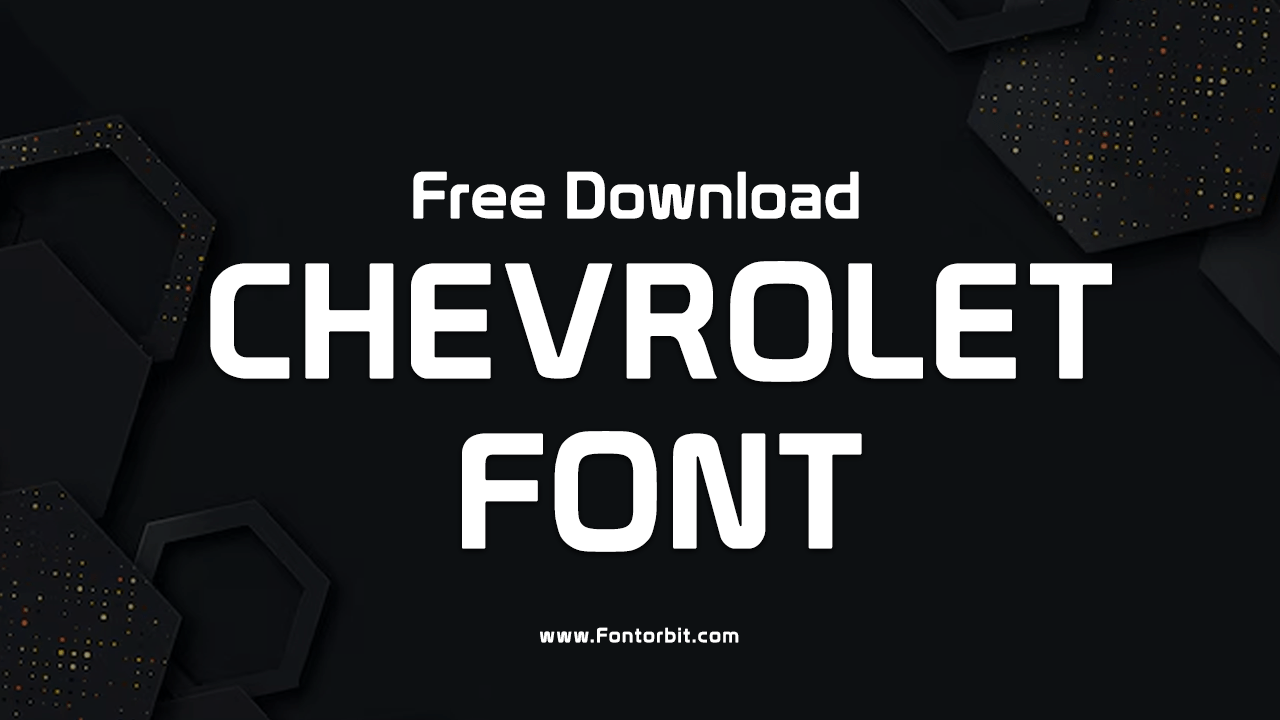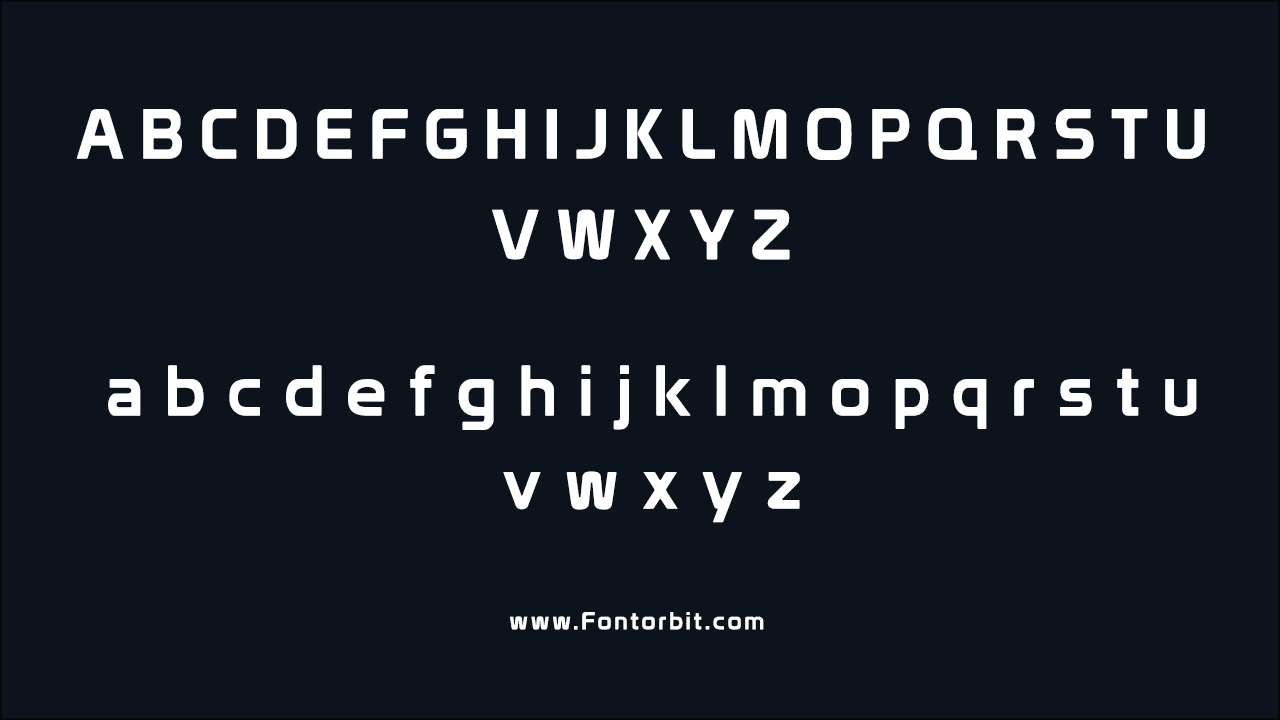
Chevrolet Font is a classic and bold typeface inspired by the iconic Chevrolet logo. Known for its steel-like appearance and distinctive design elements, this font captures the essence of the brand’s prestigious heritage.
The Chevrolet Font reflects a classic and robust style, featuring distinctive design elements that highlight its prestigious heritage. The font family includes:
Chevrolet Font’s strong and elegant style makes it perfect for a variety of high-impact and prestigious design projects. Its unique design suits applications requiring a touch of classic sophistication and strength.
You will often see Chevrolet Font in branding and promotional materials where a touch of classic strength and elegance is desired. Its robust design makes it a popular choice for luxury and high-impact contexts.
Chevrolet Font embodies a classic and bold design, reflecting strength and sophistication. While it may not be a replica of any historical typeface, it captures the enduring essence of the Chevrolet brand. Pair Chevrolet Font with modern, clean typefaces or design elements to create a striking and balanced visual composition.
1.What Font Does Chevrolet Use?
Chevrolet primarily uses a custom font designed for its logo, often referred to as “Chevrolet” or “Bootie/Cross.” It is a unique typeface specific to the brand.
2.What Is The Best Way To Use The Chevrolet Font In A Design?
Use Chevrolet Font for high-impact, classic branding, and luxury projects. It works well in large sizes for logos, headers, and prominent text to convey strength and sophistication.